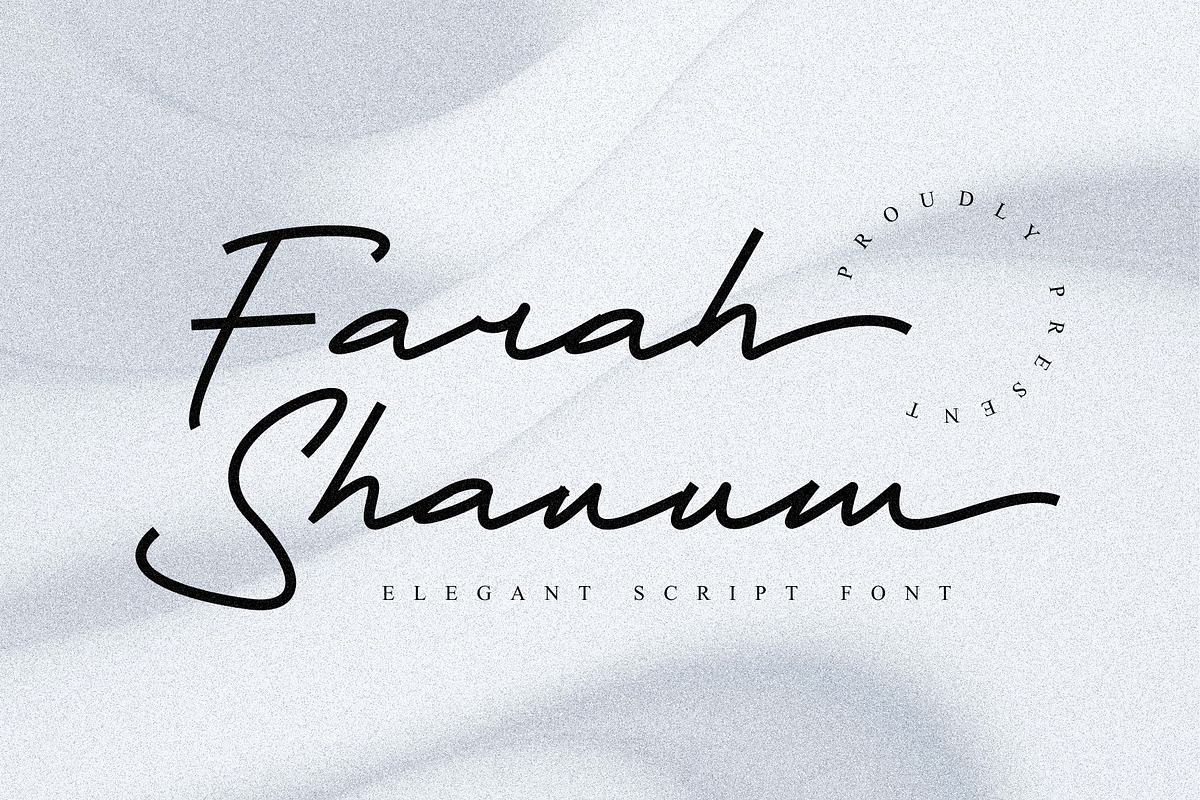
Farah Shanum – Script Font Free Download is a graceful and luxurious handwritten typeface, perfect for elegant branding, wedding stationery, beauty packaging, and social media design. Its flowing curves and delicate details bring a touch of romance and refinement to every project.
Designed to evoke elegance and femininity, Farah Shanum – Script Font Free Download features smooth strokes and natural movement that make your typography feel handcrafted and heartfelt. Whether you're creating a high-end logo or a heartfelt quote, this script font delivers both sophistication and personality. Download it now to see how it enhances your creative work—then upgrade to a commercial license when you're ready to go live with confidence.